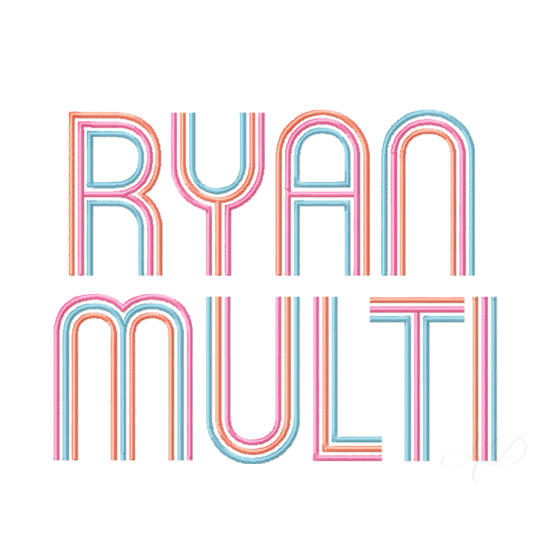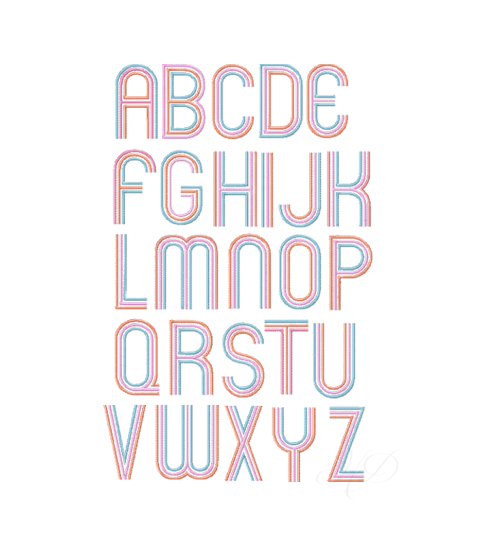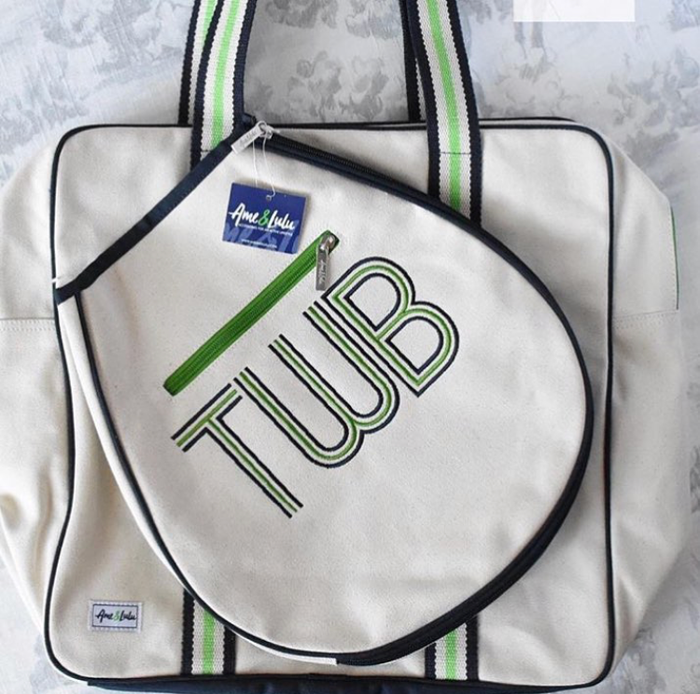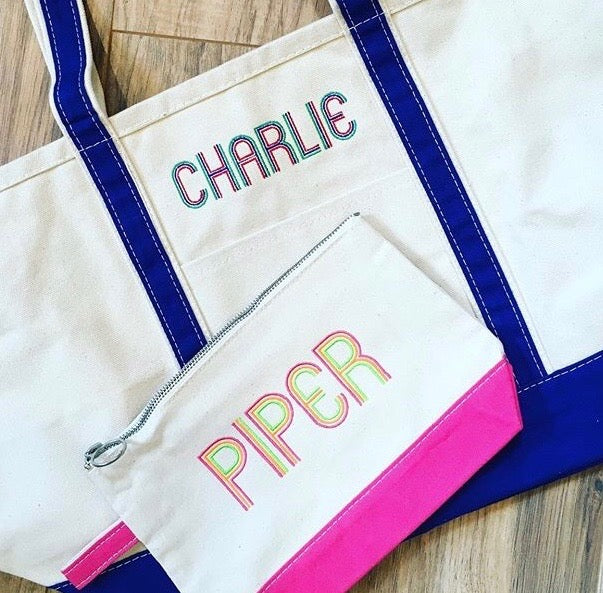
4.5" Ryan Multi Color Small Font
The 4.5" Ryan Three Tone or Multi Color Font is a three color satin stitch font with the color change added from our original single color Ryan Deco font.
The font is uppercase letters A-Z with 26 files per size.